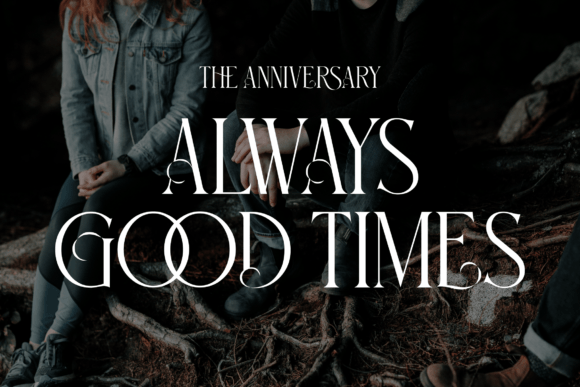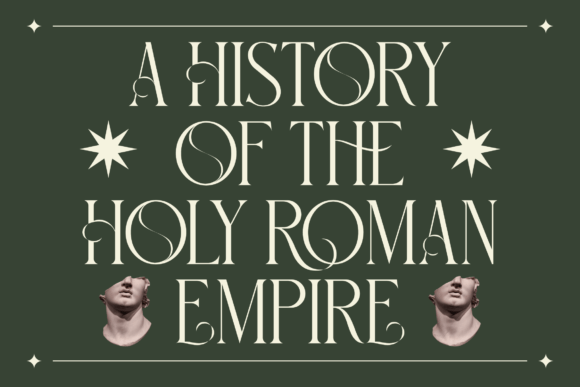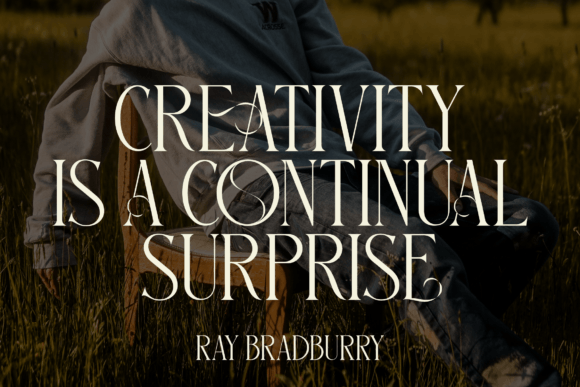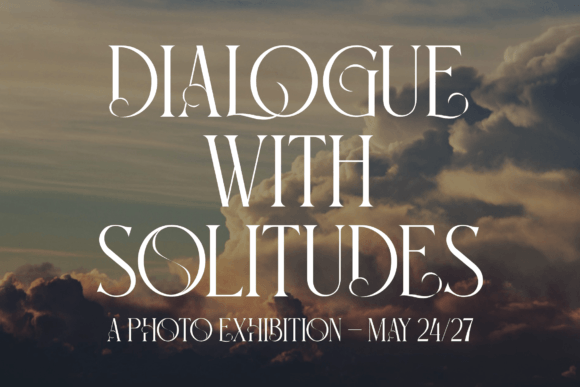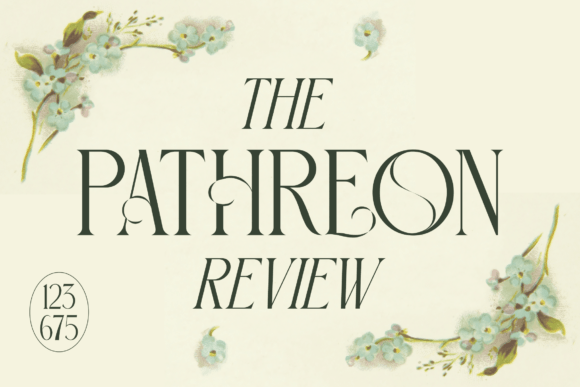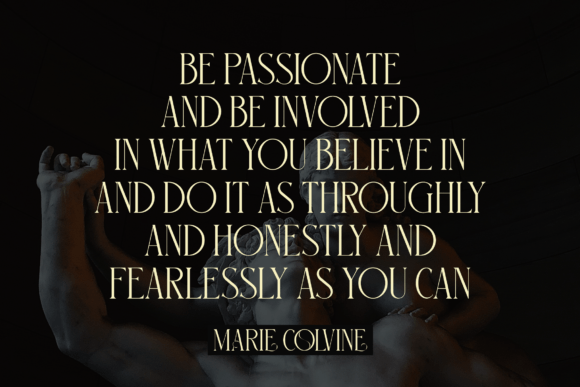
Glorious Font: Elevate Your Designs with Elegance and Luxury
In the world of typography, fonts play a crucial role in conveying the tone and personality of a brand, product, or creative project. For designers and crafters seeking to add a touch of sophistication and glamour to their work, the Glorious Font is an exceptional choice. This unique and modern serif font is perfect for creating elegant and luxurious logos, book or movie title designs, fashion brands, magazines, clothing, and more.
The Characteristics of Glorious Font
Glorious Font boasts a distinctive and refined design, characterized by its crisp lines, precise curves, and classic serif elements. Its modern twist sets it apart from traditional serif fonts, making it an excellent option for those looking to add a contemporary flair to their designs. The font’s exceptional legibility ensures that it remains clear and readable, even at smaller sizes, making it versatile for various applications.
Perfect for Elegant and Luxurious Designs
Whether you’re working on a luxury brand’s logo, a high-end fashion magazine, or an elegant book cover, Glorious Font is the perfect choice. Its sophisticated design exudes refinement and poise, instantly elevating your project to a new level of elegance. The font’s luxurious feel makes it an excellent fit for designs that require a sense of prestige and high-end quality.
The versatility of Glorious Font is one of its most significant advantages. Designers and crafters can use it in a wide range of creative projects, including:
- Logos and branding: Create a lasting impression with a luxurious logo that showcases your brand’s personality and values.
- Book and movie titles: Add a touch of sophistication to your title designs, making them stand out on bookshelves or movie screens.
- Fashion brands: Elevate your fashion brand’s visual identity with a font that exudes style and elegance.
- Magazines and publications: Use Glorious Font to add a level of sophistication to your magazine or publication, making it more appealing to readers.
- Clothing and apparel: Add a luxurious touch to your clothing and apparel designs, making them more desirable to customers.
- Quotes and typography: Use Glorious Font to create stunning typographic quotes, perfect for social media, posters, or wall art.
Why Choose Glorious Font?
With so many fonts available, why choose Glorious Font? Here are a few compelling reasons:
- Unique and modern design: Glorious Font offers a fresh take on traditional serif fonts, making it an excellent choice for designers looking for something new and exciting.
- Exceptional legibility: The font’s clear and readable design ensures that your message is conveyed effectively, regardless of the application.
- Versatility: Use Glorious Font in a wide range of creative projects, from logos and branding to book titles and fashion designs.
- Elegance and luxury: The font’s sophisticated design exudes refinement and poise, making it perfect for projects that require a sense of prestige and high-end quality.
In conclusion, Glorious Font is an exceptional choice for designers and crafters seeking to add a touch of elegance and luxury to their creative projects. Its unique and modern serif design, exceptional legibility, and versatility make it perfect for a wide range of applications. Whether you’re working on a luxury brand’s logo, a fashion magazine, or a book title design, Glorious Font is sure to elevate your project to new heights. Add it to your creative toolkit today and experience the transformative power of this glorious font.